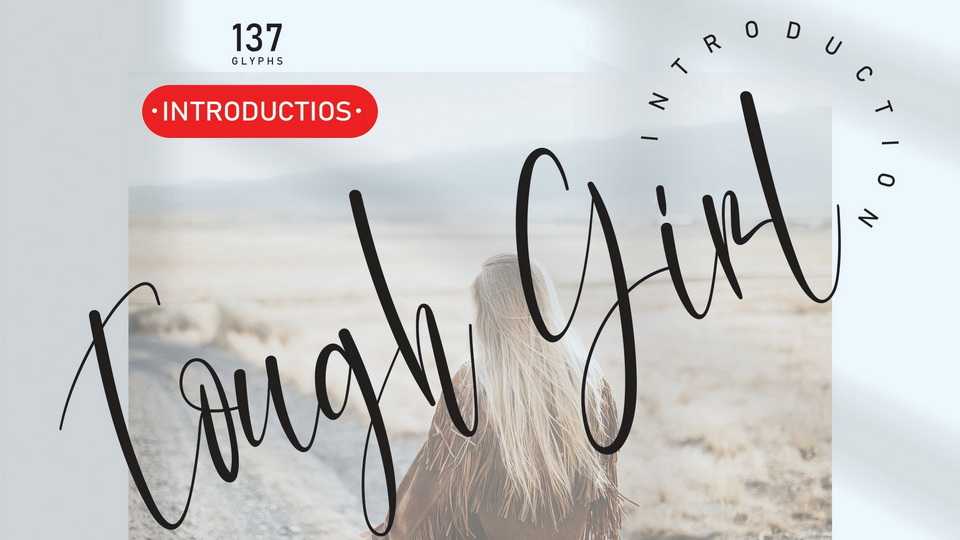
Download Tough Girl font, a flowing handmade font made of beautiful creative strokes. Tough Girl font is perfect for your creative ideas, both formal and informal.